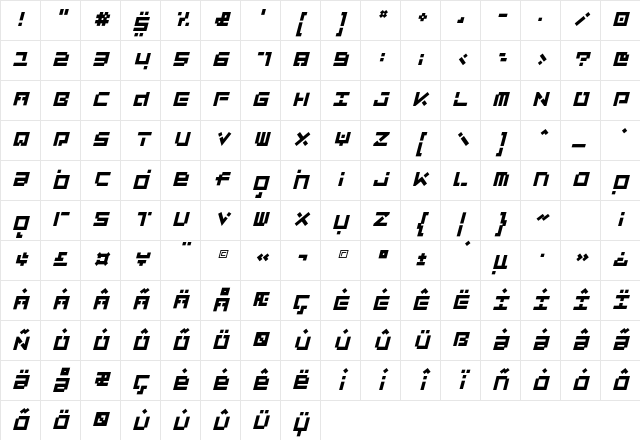
LuggageBroken HeavyObl
Style: HeavyObl
LuggageBroken Family
LuggageBroken HeavyObl
Complete LuggageBroken HeavyObl glyph index. Displaying only characters natively supported by LuggageBroken HeavyObl font.
Design Context for LuggageBroken
LuggageBroken is a composed and adaptable typeface that performs quietly and consistently across a wide range of design contexts.